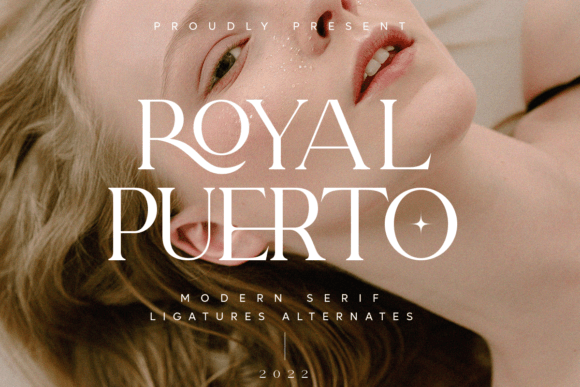
Journey into the world of literary elegance with Royal Puerto, a captivating serif font crafted to elevate your writing projects to new heights. Indulge in its timeless beauty, reminiscent of classic literature, and watch your words transform into masterpieces.
With Royal Puerto as your muse, craft novels that captivate, poems that sing, and stories that transport readers to realms unknown. Its delicate curves and graceful lines add a touch of sophistication to every character, imbuing your writing with an ageless charm.
More than just a font, Royal Puerto is a gateway to creative freedom. Its versatility extends beyond the written word, making it a perfect companion for branding, logo design, and social media graphics. With Royal Puerto, your designs will exude an air of timeless elegance, attracting attention and leaving a lasting impression.
Embrace the allure of Royal Puerto and unlock the potential of your imagination. Whether you're a seasoned author or just beginning your literary journey, this font will be your loyal companion, guiding you towards greatness.
So, why settle for ordinary when you can write with Royal Puerto, the font that turns words into art? Experience the magic of Royal Puerto today and let your creativity soar!